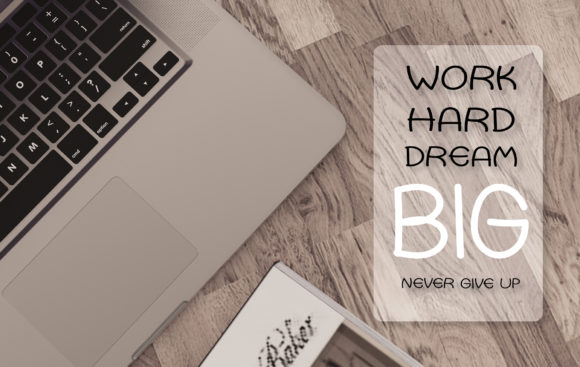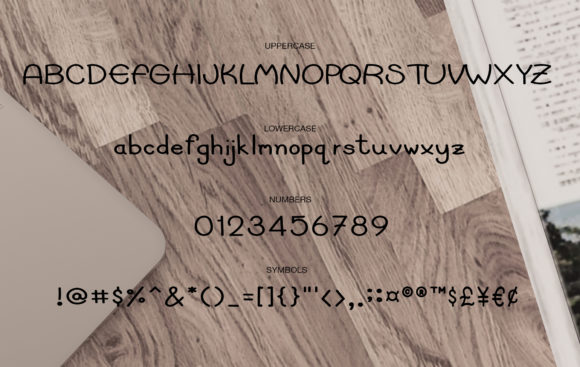
Discover the Elegance of Emperor Master Font: Elevate Your Designs with a Calm and Steady Script
Are you a designer or crafter looking for a font that exudes calmness and sophistication? Look no further than the Emperor Master Font. This beautiful script font is designed to add a touch of elegance and serenity to any design project, making it perfect for a wide range of applications, from wedding invitations and branding materials to digital content and craft projects.
The Unique Charm of Emperor Master Font
Emperor Master Font boasts a unique charm that sets it apart from other script fonts. Its calm and steady strokes convey a sense of confidence and stability, making it an excellent choice for designers who want to create a lasting impression. The font’s elegant and refined aesthetic is perfect for designs that require a touch of sophistication, such as luxury branding, high-end product packaging, and stylish stationery.
Key Features of Emperor Master Font
- Calm and Steady Strokes: The font’s smooth and consistent strokes create a sense of serenity and calmness, making it perfect for designs that require a peaceful and soothing atmosphere.
- Elegant and Refined Aesthetic: Emperor Master Font’s elegant and refined design makes it suitable for high-end branding, luxury packaging, and stylish stationery.
- Unique Letterforms: The font’s unique letterforms add a touch of personality to any design, making it stand out from the crowd.
- Versatile and Adaptable: Emperor Master Font is versatile and adaptable, making it suitable for a wide range of design applications, from digital content to print materials.
Emperor Master Font is an excellent choice for designers and crafters who want to add a touch of elegance and sophistication to their projects. Here are some inspiring ways to use this beautiful font:
- Wedding Invitations: Use Emperor Master Font to create stunning wedding invitations that exude elegance and sophistication.
- Luxury Branding: Elevate your luxury brand with Emperor Master Font’s refined and elegant aesthetic.
- Digital Content: Add a touch of sophistication to your digital content, such as blog posts, social media graphics, and email newsletters.
- Craft Projects: Use Emperor Master Font to create beautiful and unique craft projects, such as handmade cards, gift tags, and scrapbooking pages.
Tips for Using Emperor Master Font
To get the most out of Emperor Master Font, here are some tips to keep in mind:
- Pair with Complementary Fonts: Pair Emperor Master Font with complementary fonts to create a harmonious and visually appealing design.
- Pay Attention to Spacing: Pay attention to spacing and kerning to ensure that your text is easy to read and visually appealing.
Emperor Master Font is a beautiful and elegant script font that is perfect for designers and crafters who want to add a touch of sophistication and calmness to their projects. With its unique charm, versatile design, and elegant aesthetic, this font is sure to inspire and elevate your designs. Get inspired by Emperor Master Font’s unique charm and take your designs to the next level!